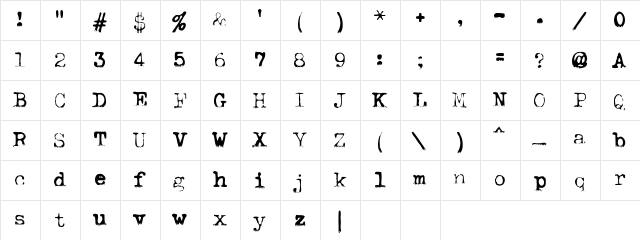
AL ModernType Regular
Design Context for AL ModernType
AL ModernType is a composed and adaptable typeface that performs quietly and consistently across a wide range of design contexts.
Pro Tip: Use AL ModernType in both headline and body roles to test its range before committing to a single application.